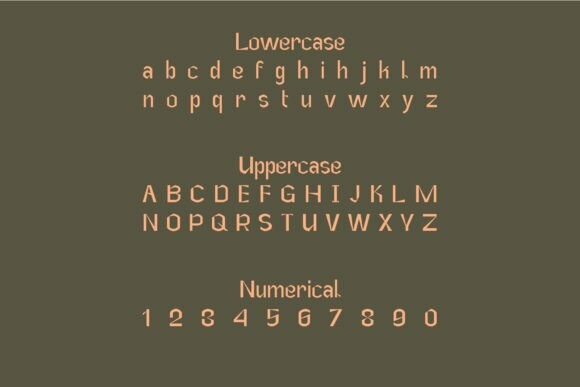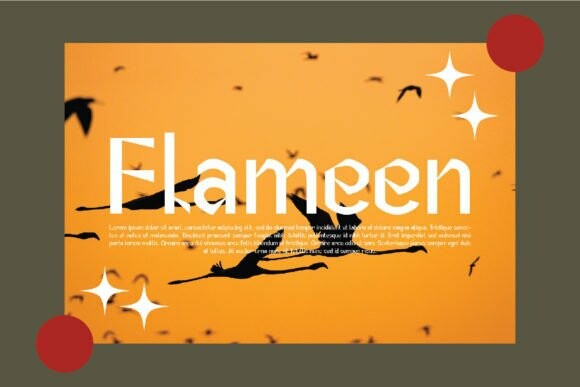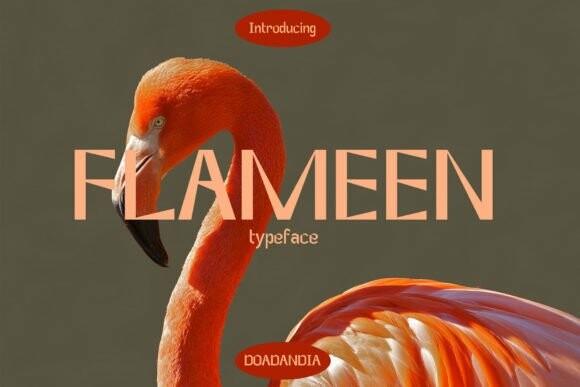
Flameen Font
Designer: doadandia
Flameen Font is a cool and contemporary display font that adds a modern touch to your projects. With its stylish design, this font stands out for headers, titles, and creative displays. Whether you’re designing for a website, poster, or logo, Flameen brings a sleek and trendy vibe to your text. Upgrade your visuals with Flameen’s modern flair and effortlessly make your content pop!